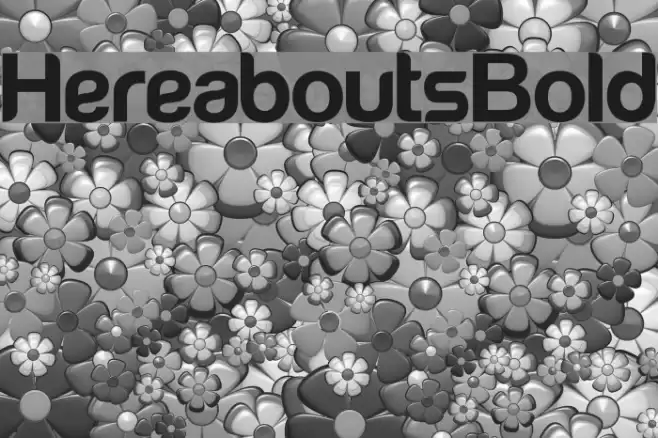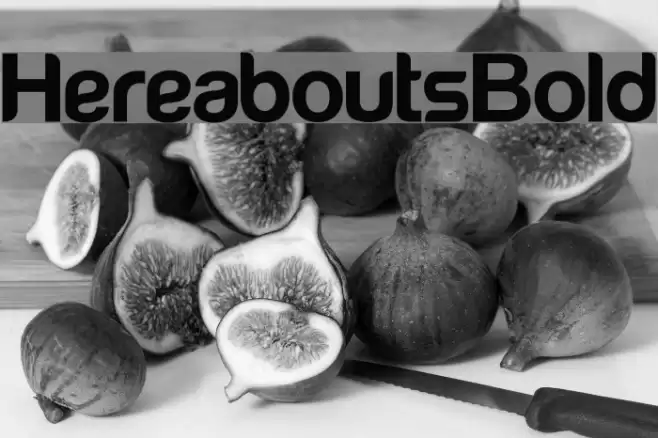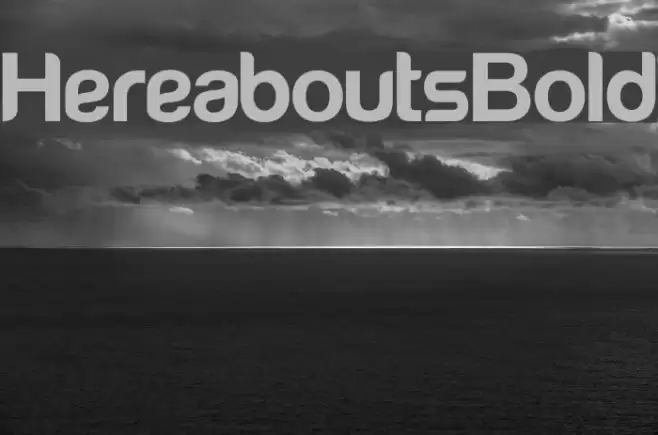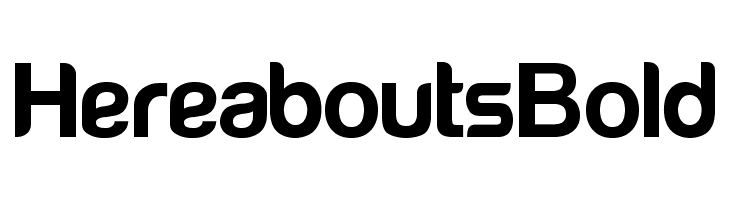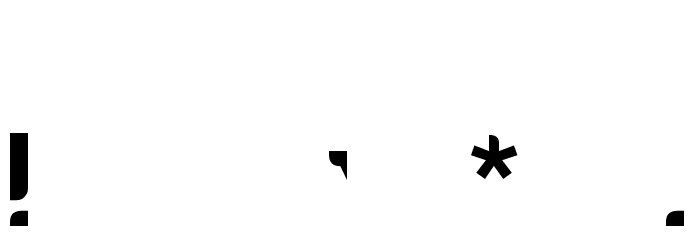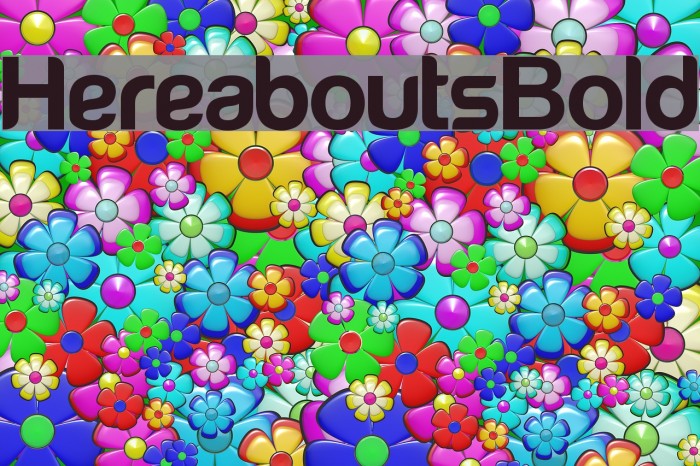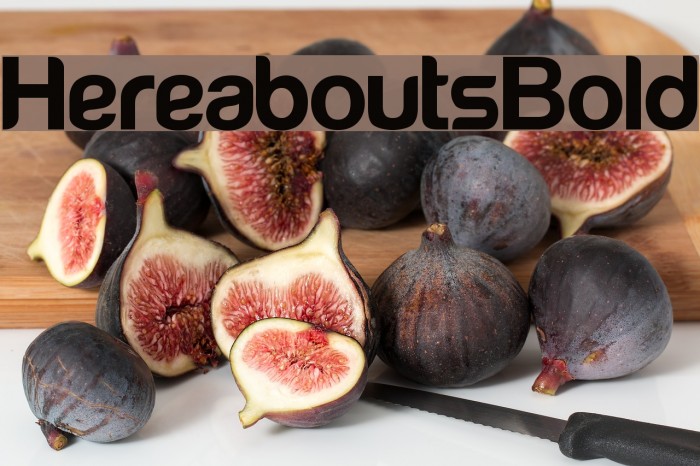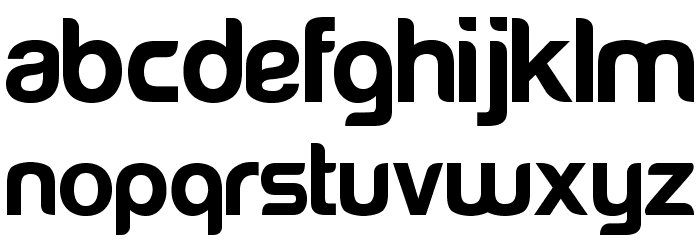
HereaboutsBold Font
HereaboutsBold Description
This font features a bold and modern design with a geometric touch. The characters are rounded with a consistent stroke width, giving it a clean and streamlined appearance. The uppercase letters are slightly condensed, while the lowercase letters maintain a more open and friendly look. The numerals are clear and easy to read, matching the overall style of the alphabet. Special characters are distinct and integrate seamlessly with the rest of the font. This font is versatile, suitable for both digital and print media, and can be used to create a strong visual impact.
A bold, modern font with rounded, geometric characters from Uncategorized fonts.